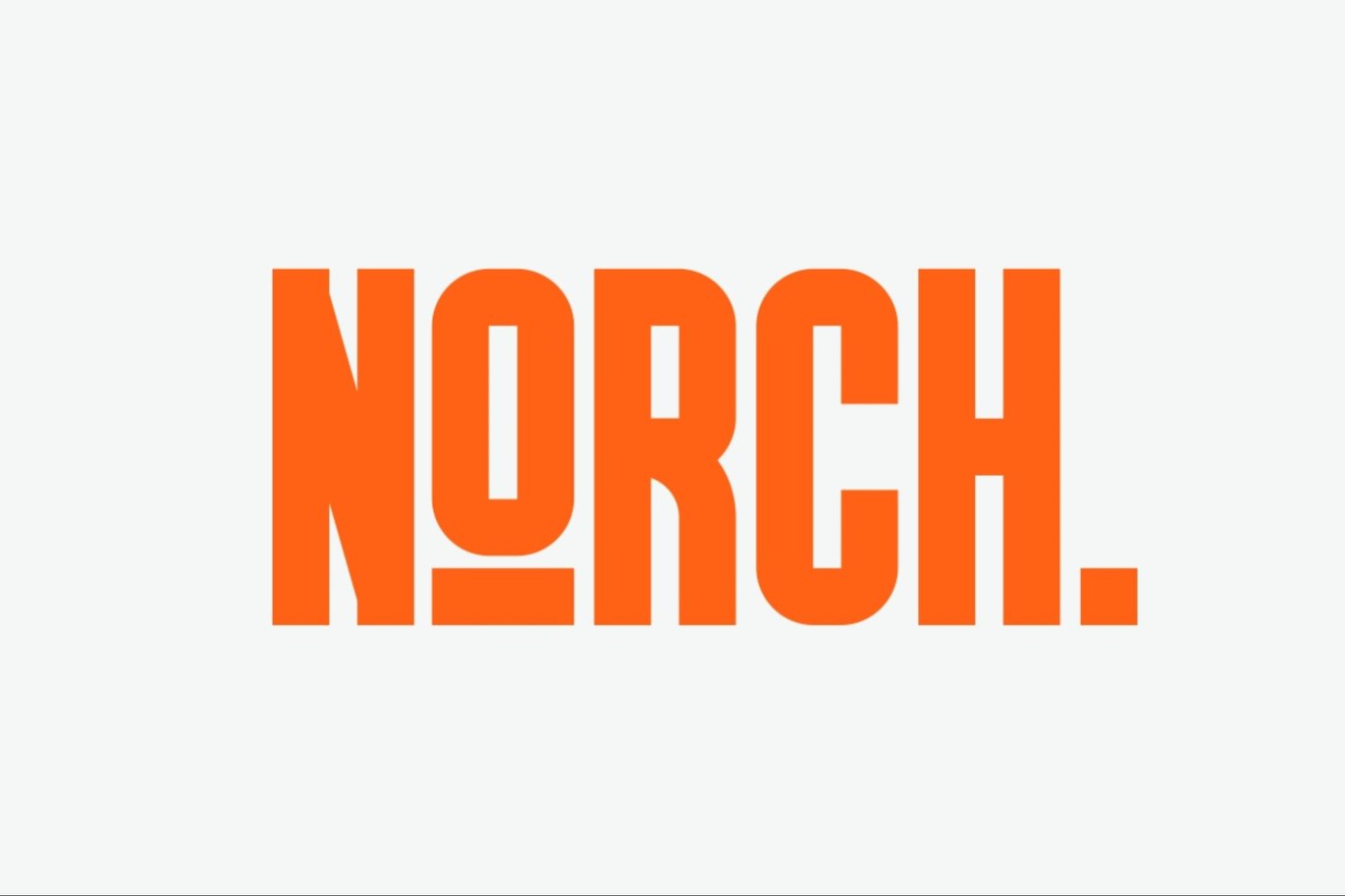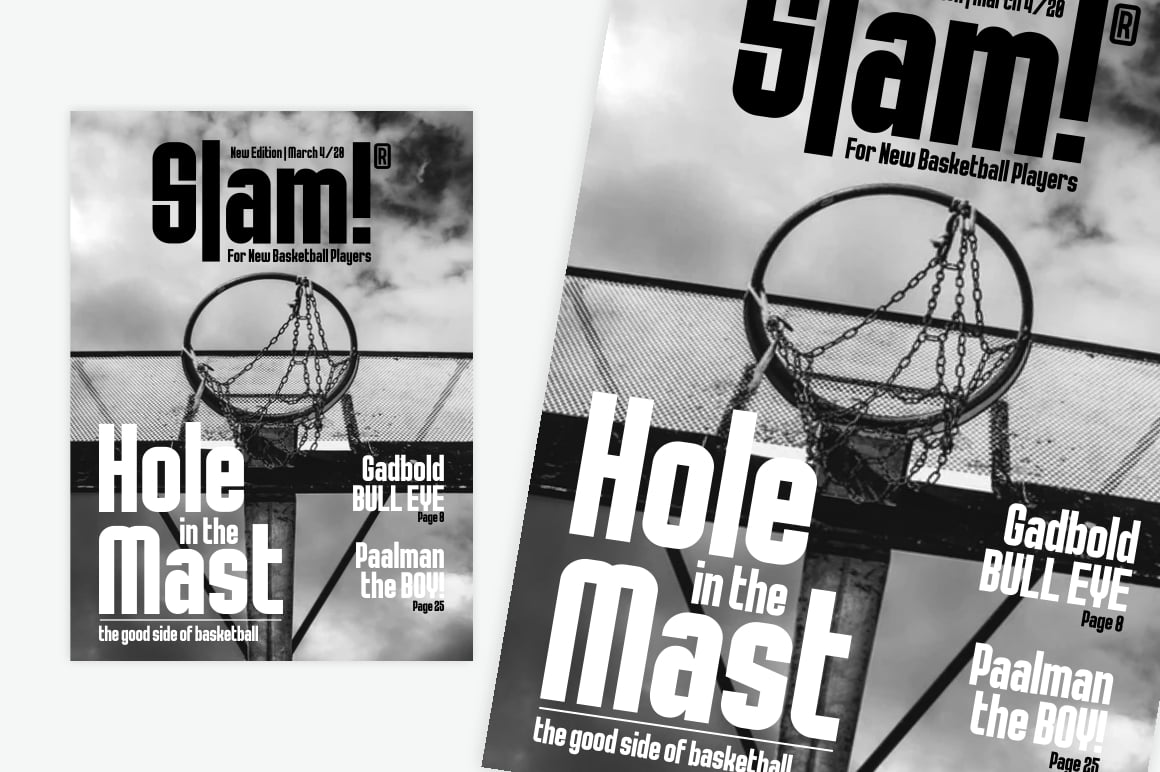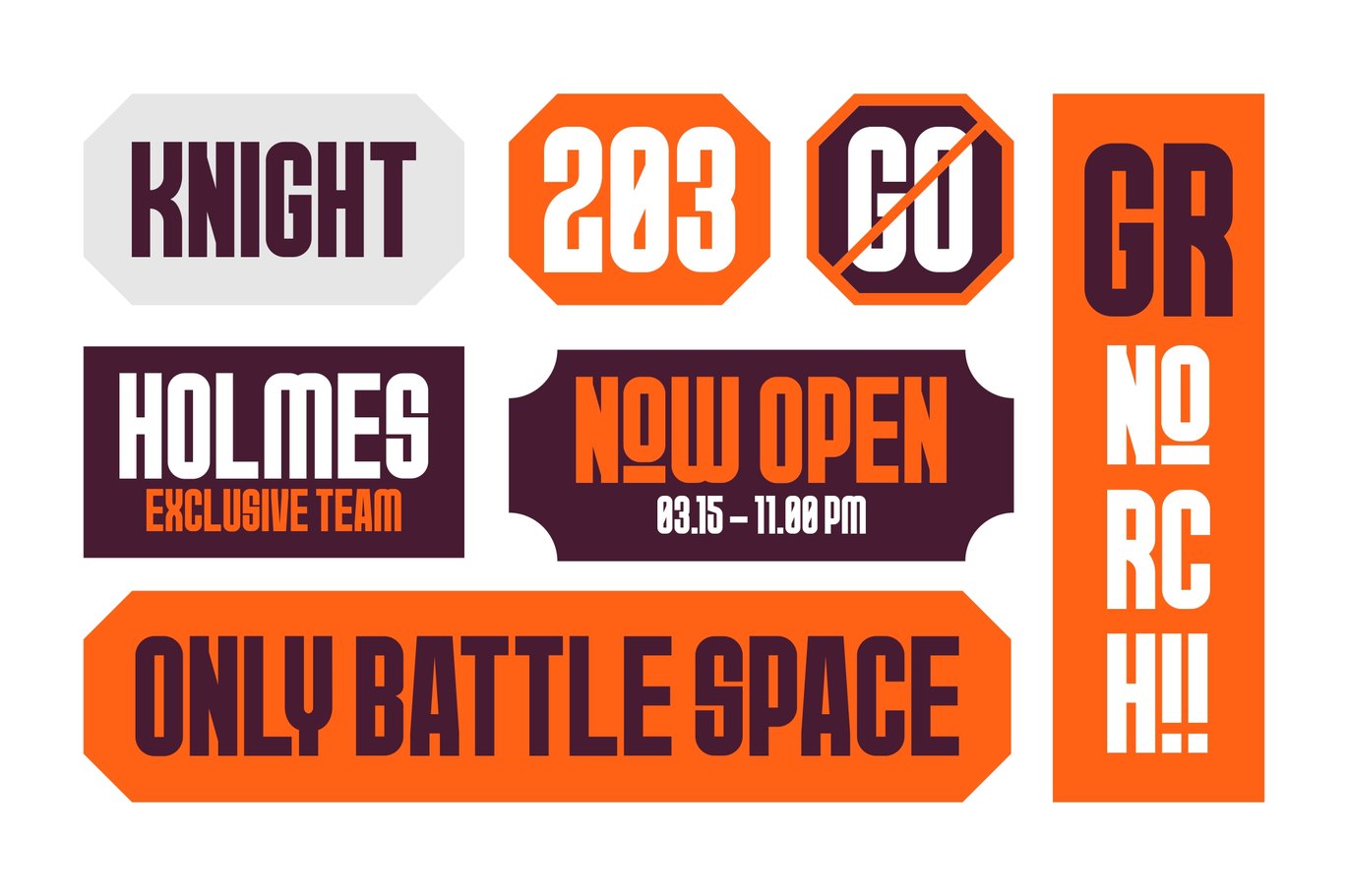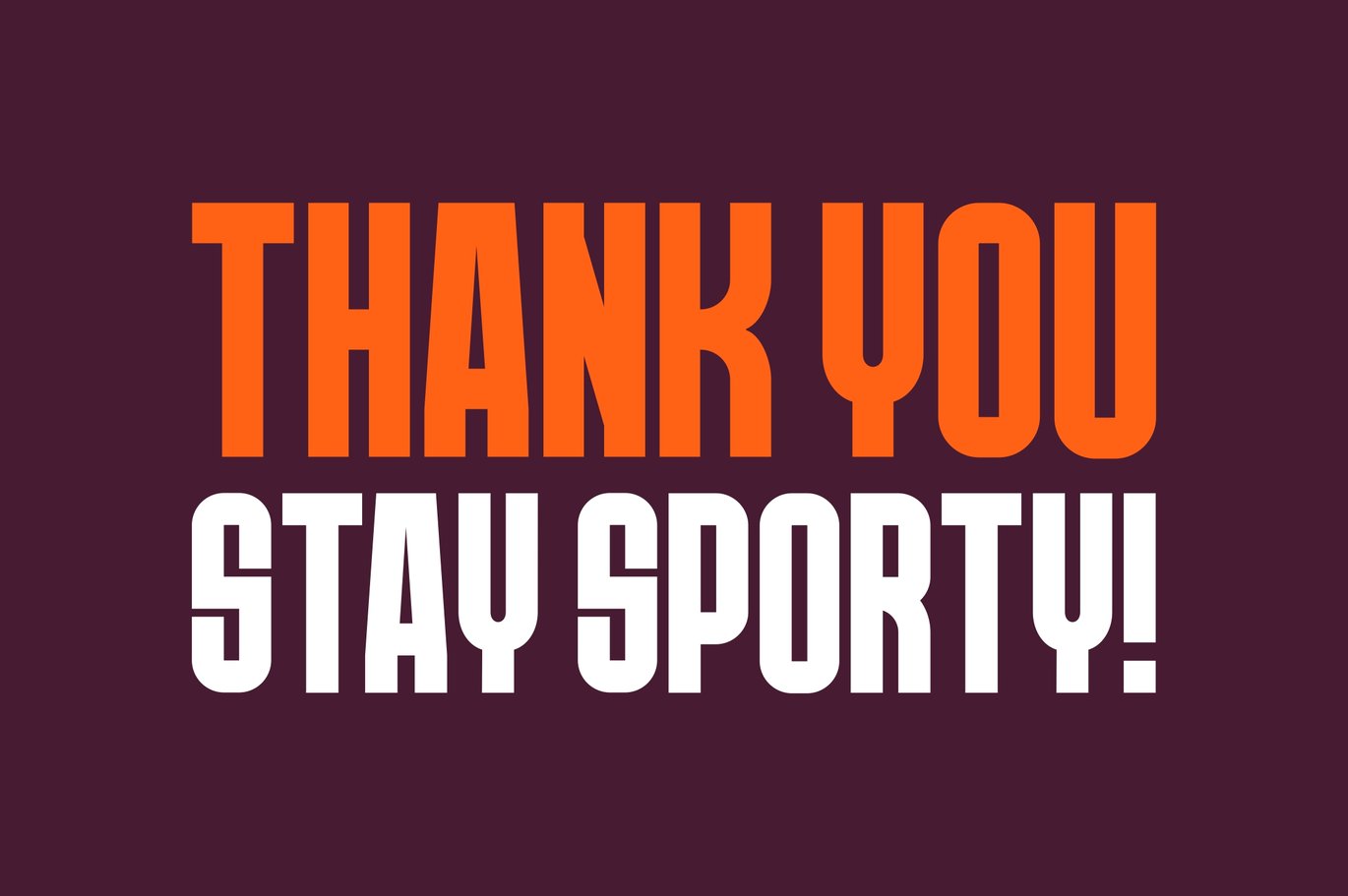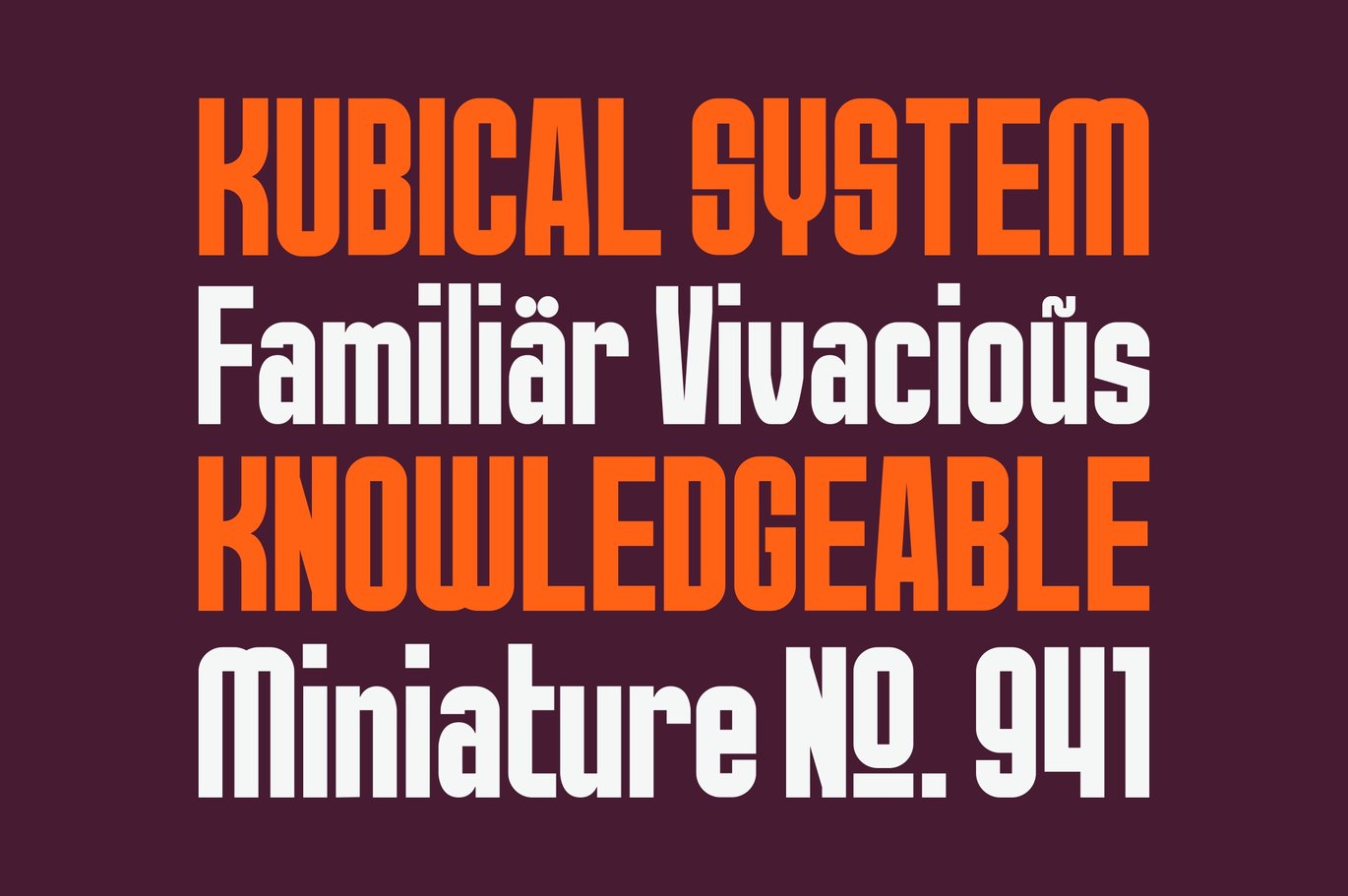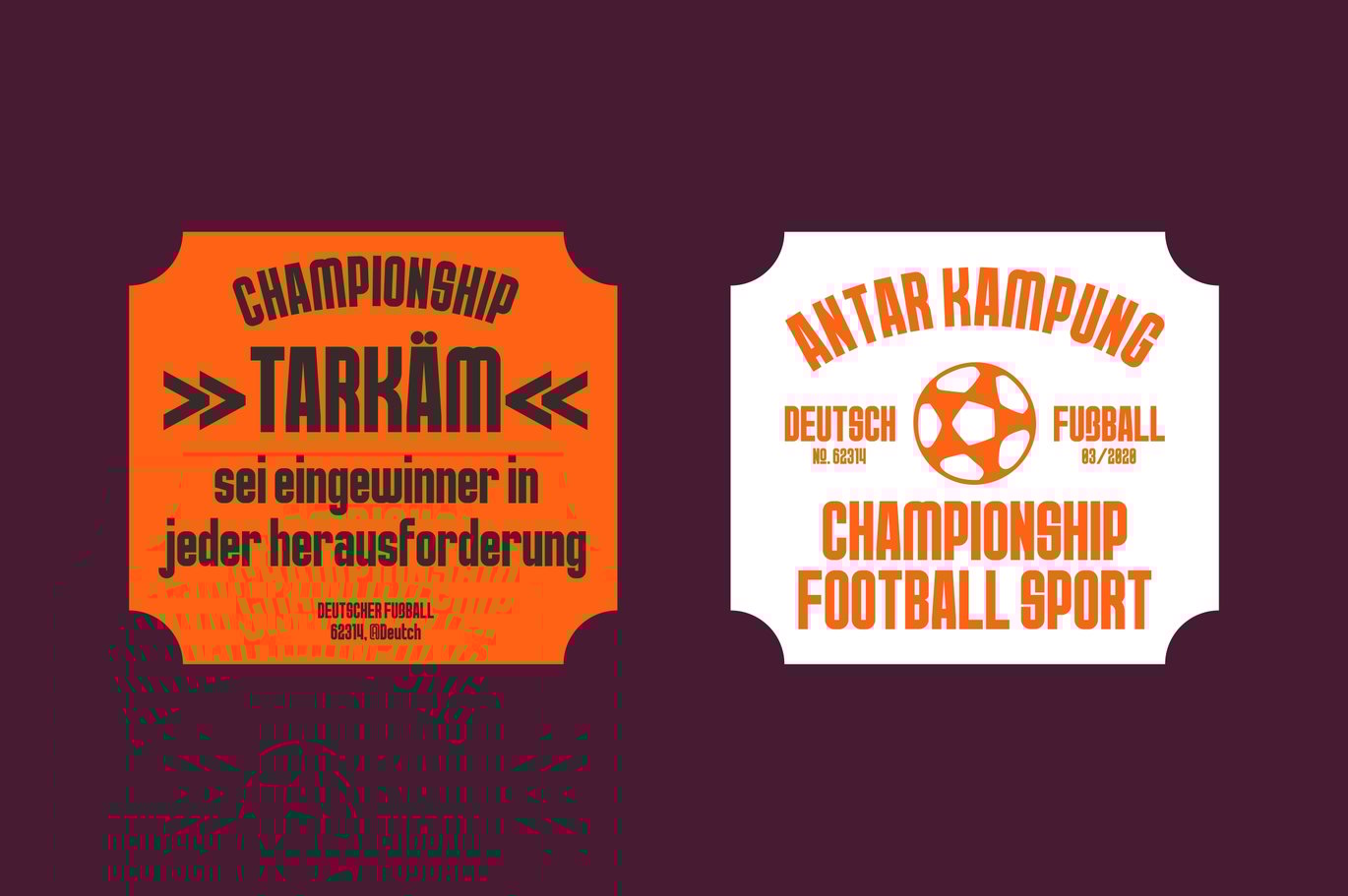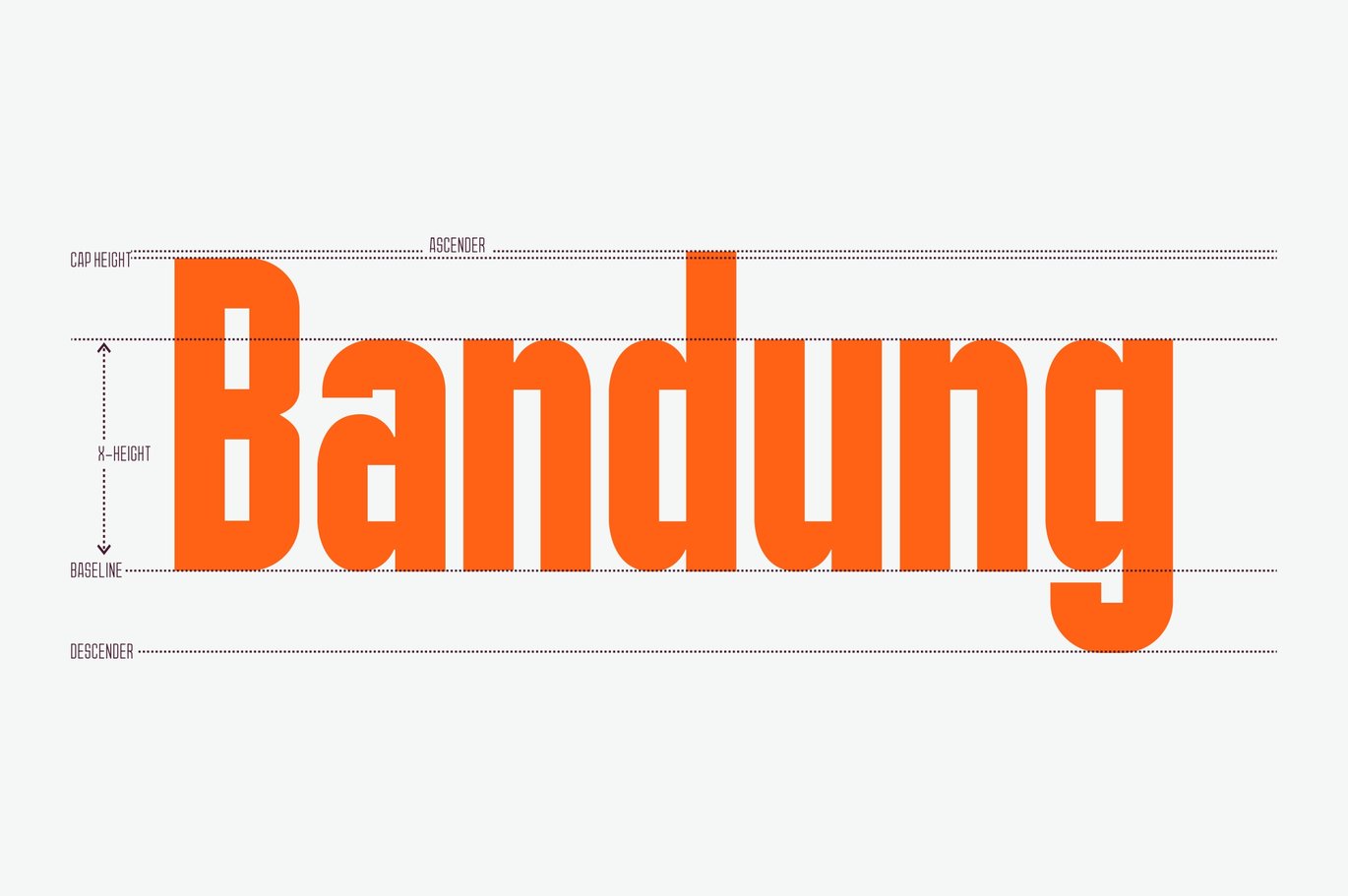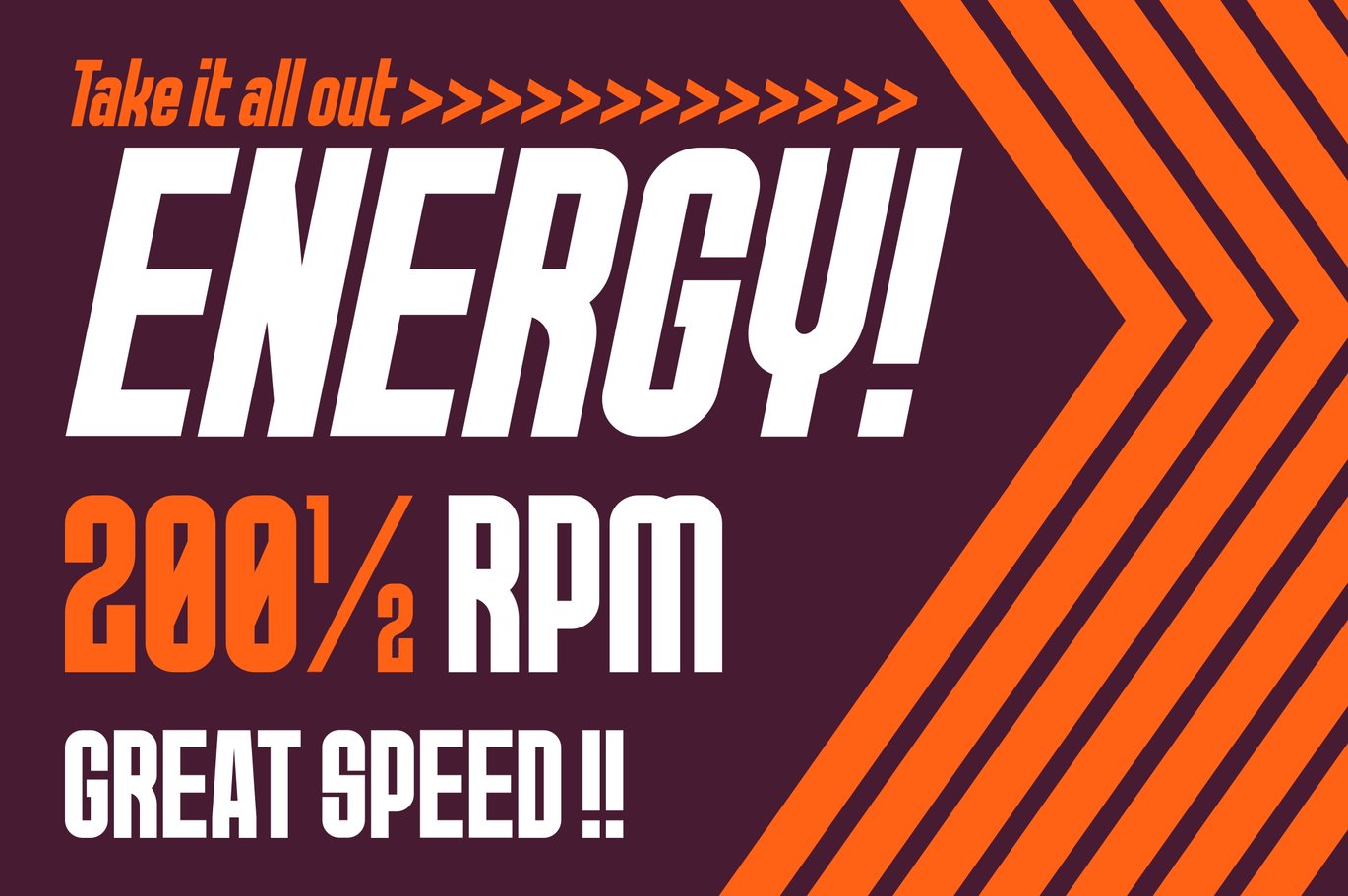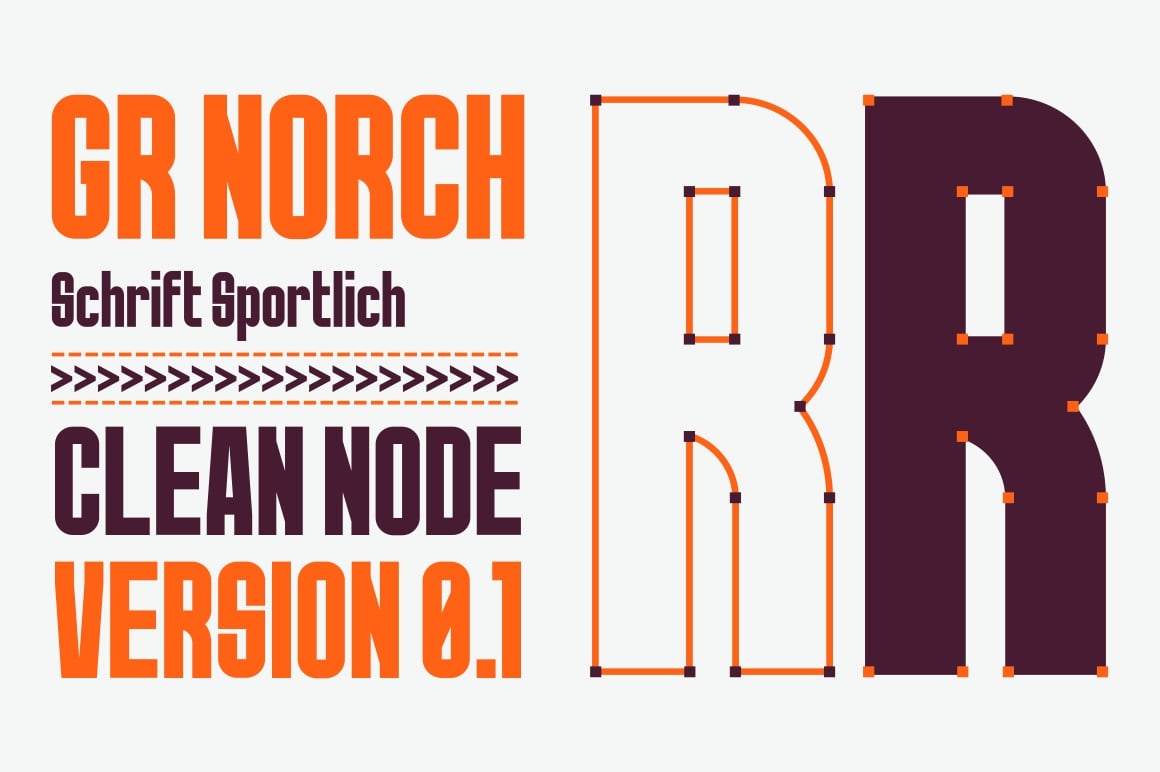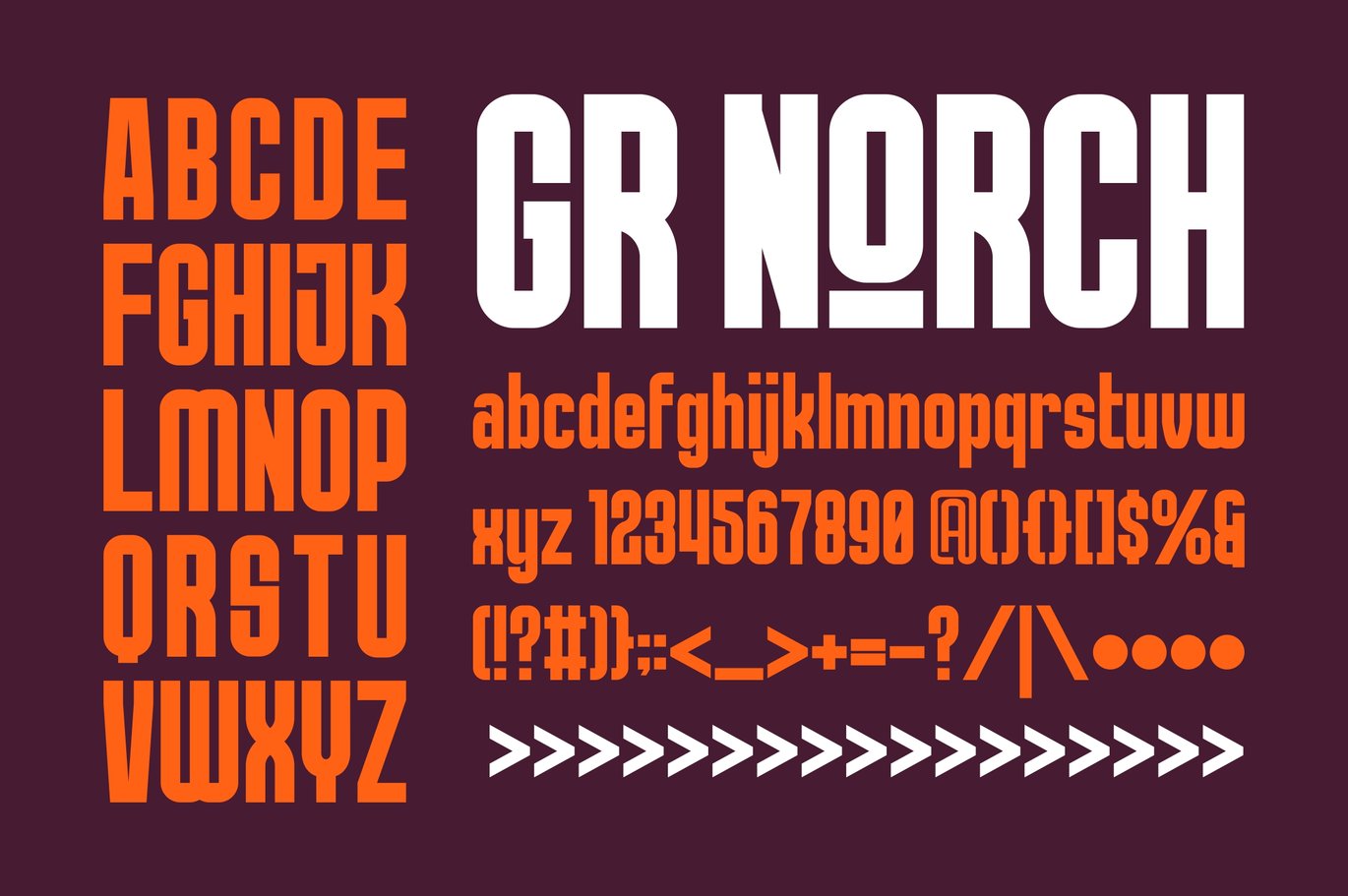
GR NORCH – Sports Display Font
*GR Norch – Sports Display Font
Norch is a very cool font for a design with sports themes: football, basketball, bowling, athletics, badminton, and others. With a strong display and clean nodes make a text in a design become more character and great. Inspired by the current trend of sports texts with a very modern and cool geometric style.
It is formed from a very carefully sports display font. Norch has 400+ glyphs. Suitable for any graphic design projects, prints, logos, posters, t-shirts, packaging and applicable for some types of graphic design. Norch is compatible with any software without any pain, especially in sports design.
GR Norch Features:
- Stylistic Set & Ligatures
- 400+ glyphs
- Multi-Language Support with accent (support for 26 languages): Afrikaans Albanian Catalan Croatian Czech Danish Dutch English Estonian Finnish French German Hungarian Icelandic Italian Lithuanian Maltese Norwegian Polish Portuguese Slovak Slovenian Spanish Swedish Turkish Zulu
- Numeral and Punctuations